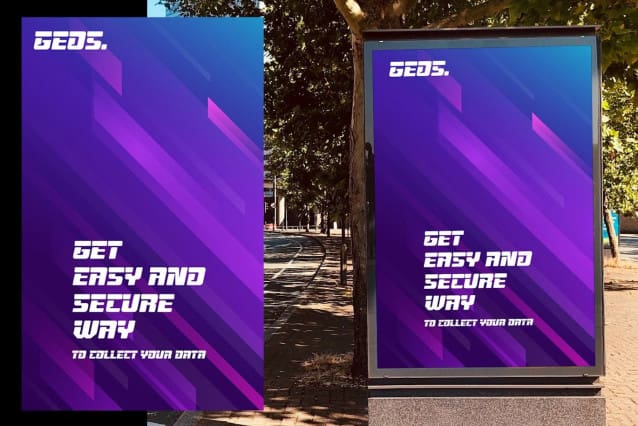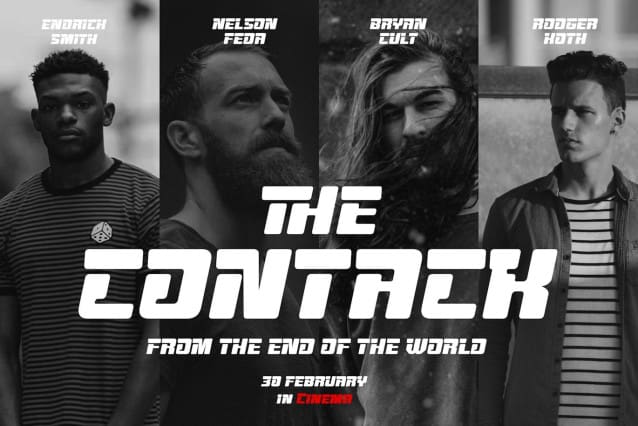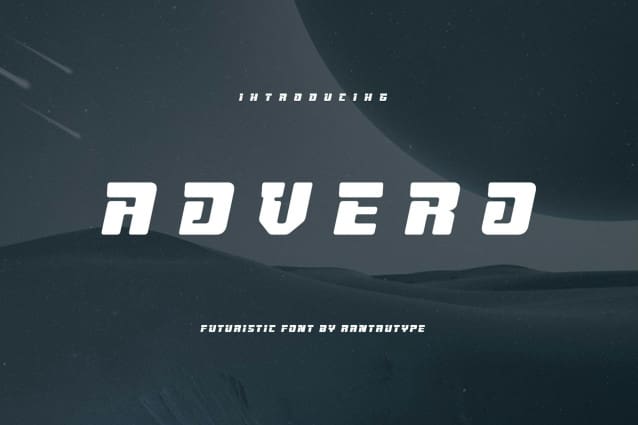
Advero Futuristic Font
Advero Futuristic Font is a futuristic font inspired by sci-fi movies and futuristic digital concept. A modern and unique letterform is two words for this font. Advero comes with ligature, alternative and multilingual support. Advero can make your design stand out!
Advero is perfect for any creative activity, business project, sports branding, Logo, business card, games, posters, film/movie, packaging, events, advertising, digital futuristic concept, etc.